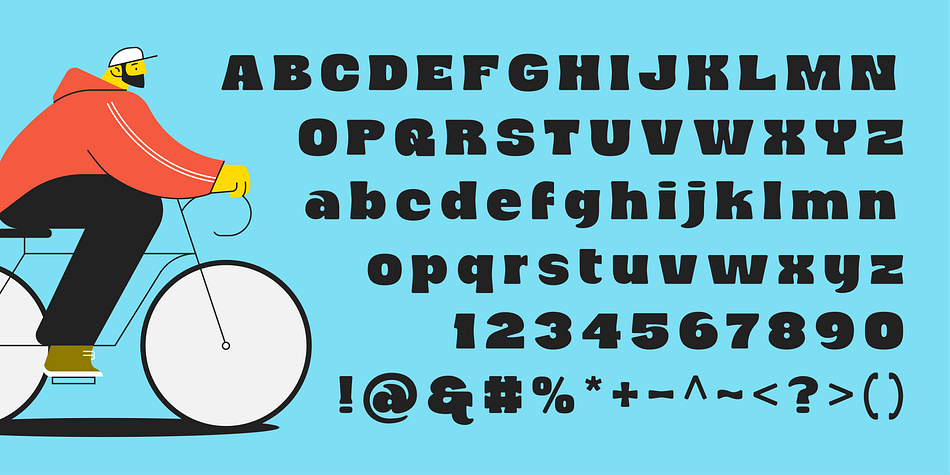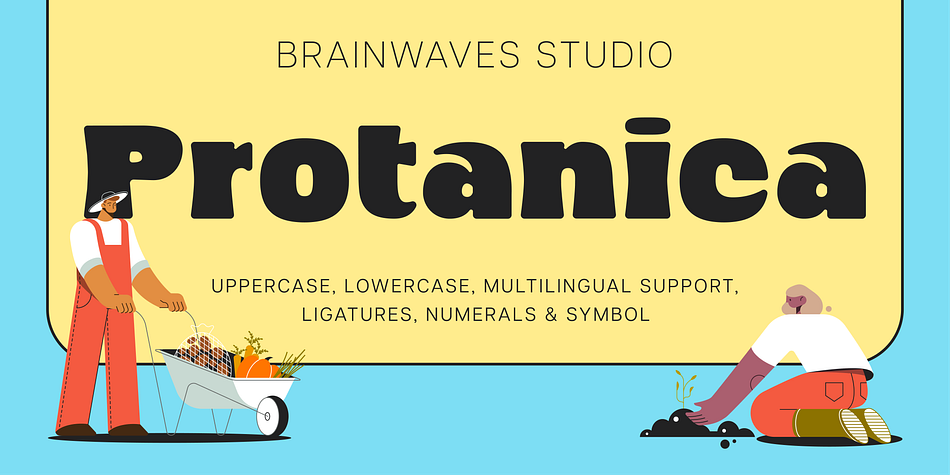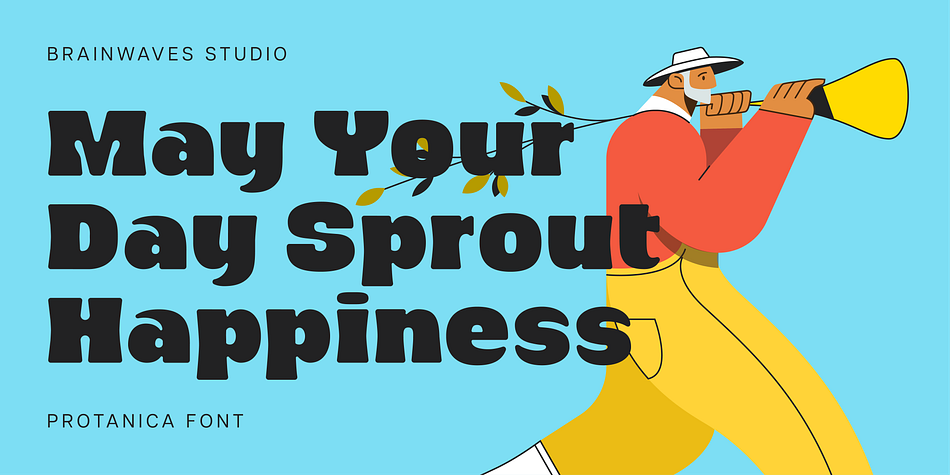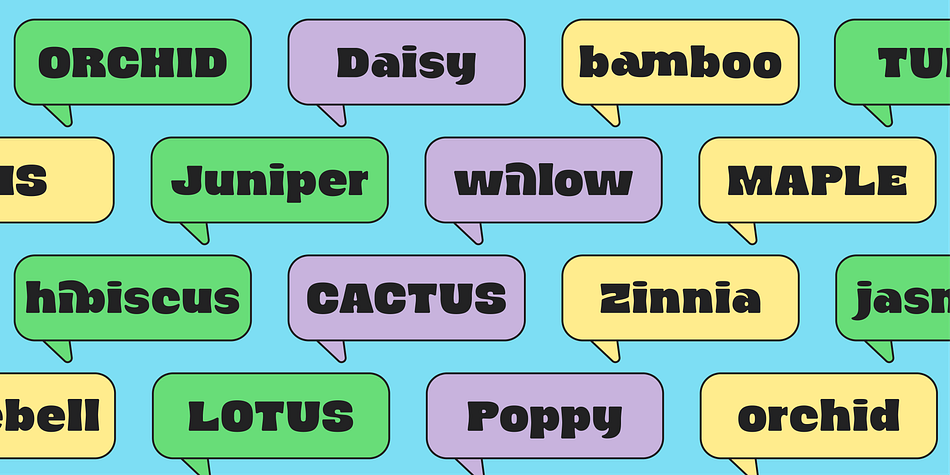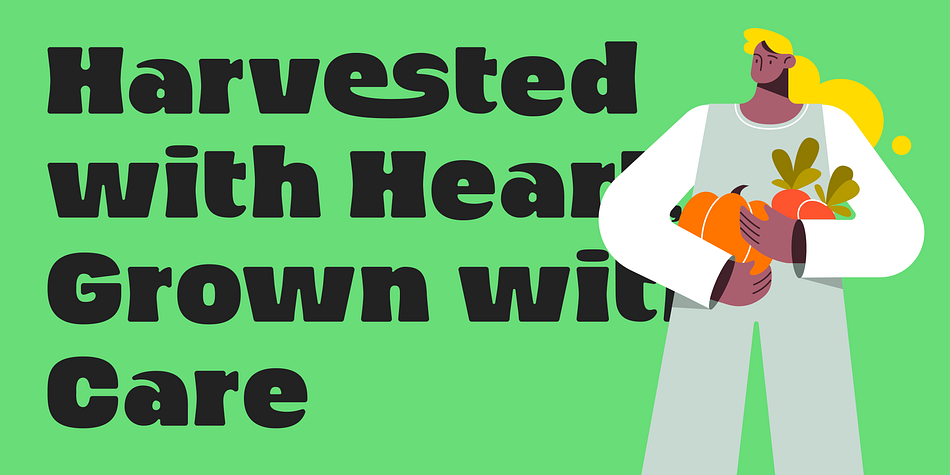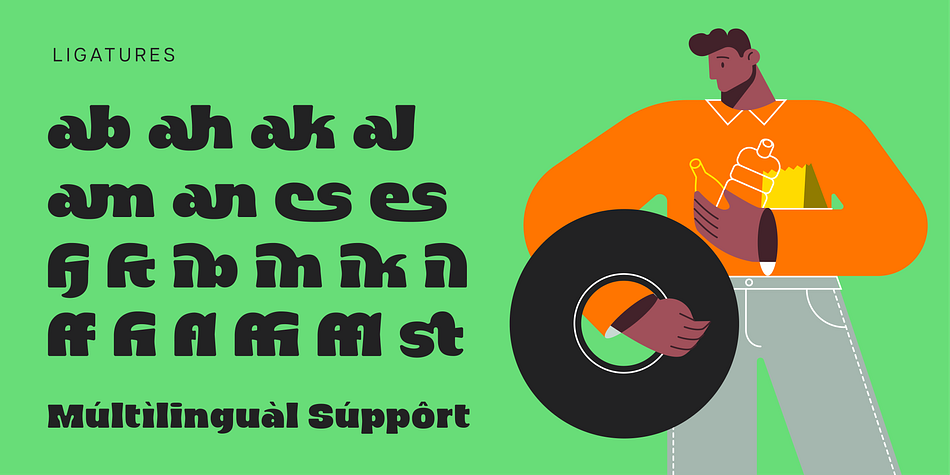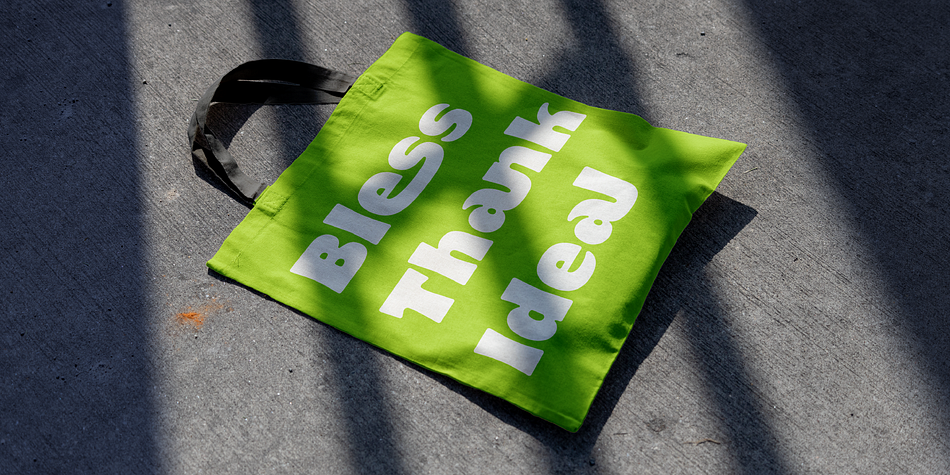
Protanica
Designed by Anggil Sukma, Protanica is a retro font family. This typeface has two styles and was published by Brainwaves Studio.
Introducing our new font, Protanica Retro Bold Font. Protanica font features a Retro Bold style with a touch of minimalism and semi-rounded edges, making it clean and ideal for minimalist retro designs. It includes Uppercase, Lowercase, Numbers, Symbols, and functional characters, along with multilingual support and standard ligatures.